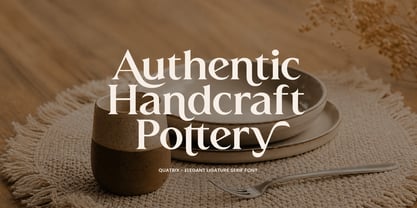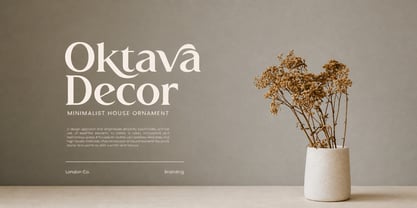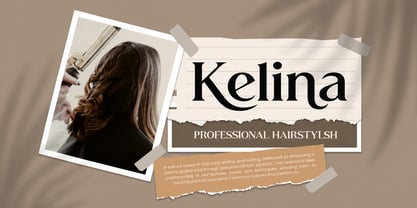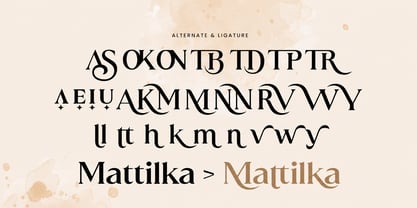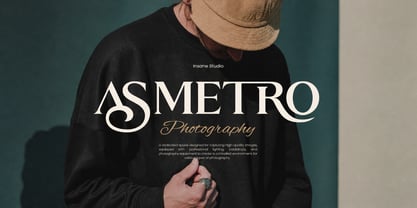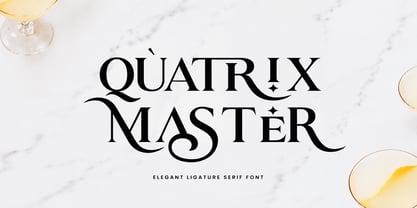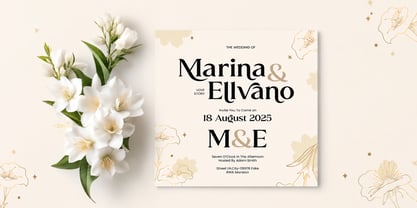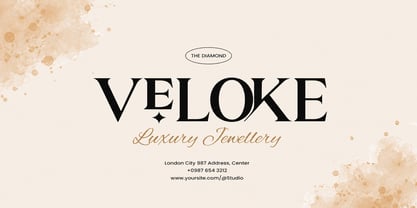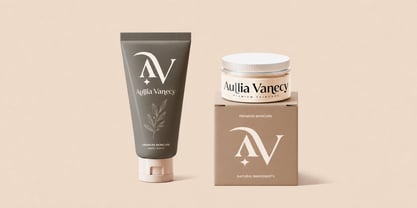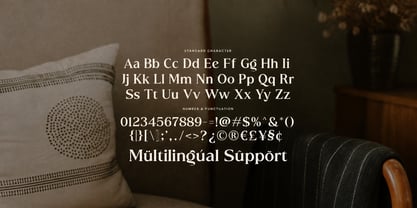
Quatrix Master
La familia tipográfica Quatrix Master fue diseñada por Faizul Muna y publicada por Unitype Studio. Quatrix Master contiene 1 estilos. Más información sobre esta familia
Quatrix – Elegant Luxury Serif Font with Stylish Ligatures
Quatrix is an elegant luxury serif font that blends classic sophistication with modern design refinement. Featuring beautifully crafted ligatures and refined letterforms, Quatrix brings a timeless aesthetic that elevates branding, editorial layouts, and high-end design projects.
Designed with meticulous attention to detail, Quatrix showcases graceful serif strokes combined with luxurious stylistic elements. The balanced proportions and smooth curves create a harmonious typography style that feels both modern and timeless, making it ideal for designers seeking a refined and prestigious look.
This elegant serif font is especially suited for luxury branding, fashion editorials, and stylish logo design. Its distinctive character ensures that every word appears polished and visually captivating, giving your projects a sophisticated and professional identity.
Quatrix also performs beautifully in a wide variety of creative contexts. From elegant wedding invitations and magazine layouts to packaging design and promotional materials, the font delivers a high-end visual presence that enhances any composition.
One of Quatrix’s standout features is its carefully designed ligatures, which allow characters to flow seamlessly together. These stylish connections add a bespoke, handcrafted quality to your typography, helping your designs feel more unique and premium.
Whether used in minimalist layouts or bold headline compositions, Quatrix maintains a striking balance between elegance and readability. Its versatile style makes it a reliable choice for designers working on sophisticated creative projects.
Bring a sense of luxury and timeless beauty to your designs with Quatrix — a serif font created to make every visual concept feel elegant, stylish, and memorable.
Key Features
Elegant Luxury Serif Font
Refined serif letterforms designed for premium branding and editorial design.
Beautiful Ligatures
Stylish ligatures create smooth and elegant character connections.
Timeless Sophisticated Style
A perfect balance between classic serif tradition and modern elegance.
Perfect Branding Font
Ideal for logos, fashion labels, and luxury brand identities.
Editorial & Display Ready
Works beautifully for magazine layouts, headlines, and stylish typography.
Multilingual Support
Extended characters for international design projects.
Perfect For
• Luxury Branding & Visual Identity
• Fashion Logos & Clothing Branding
• Editorial Layouts & Magazine Headlines
• Wedding Invitations & Elegant Stationery
• Packaging & Product Labels
• Beauty & Cosmetic Branding
• Social Media Graphics
• Posters & Promotional Designs
Additional Features
Why Choose Quatrix?
Quatrix is a refined luxury serif font with elegant ligatures designed to give your typography a sophisticated and high-end appearance. Its timeless beauty and stylish character make it perfect for designers who want to create premium and memorable visual identities.